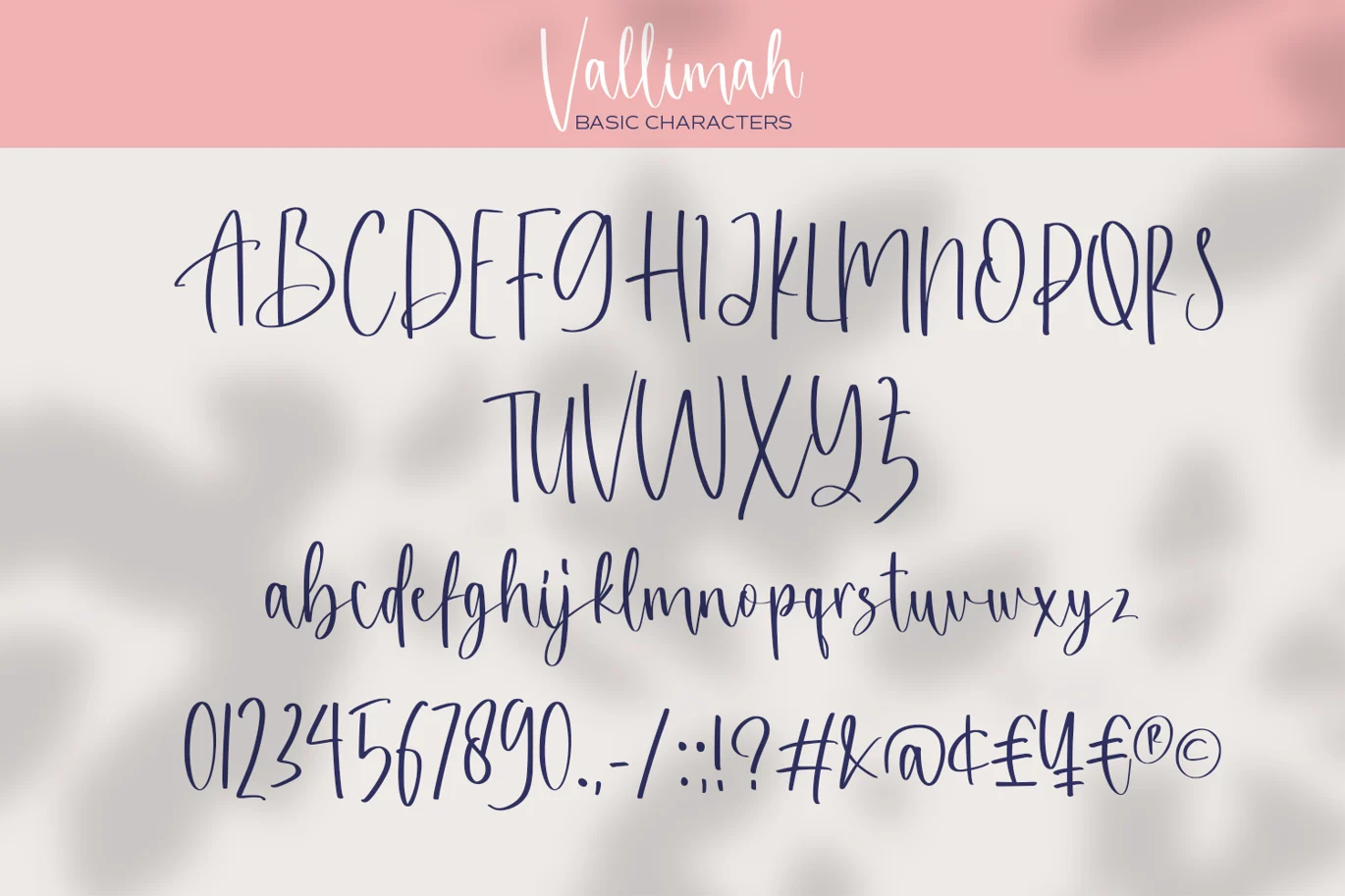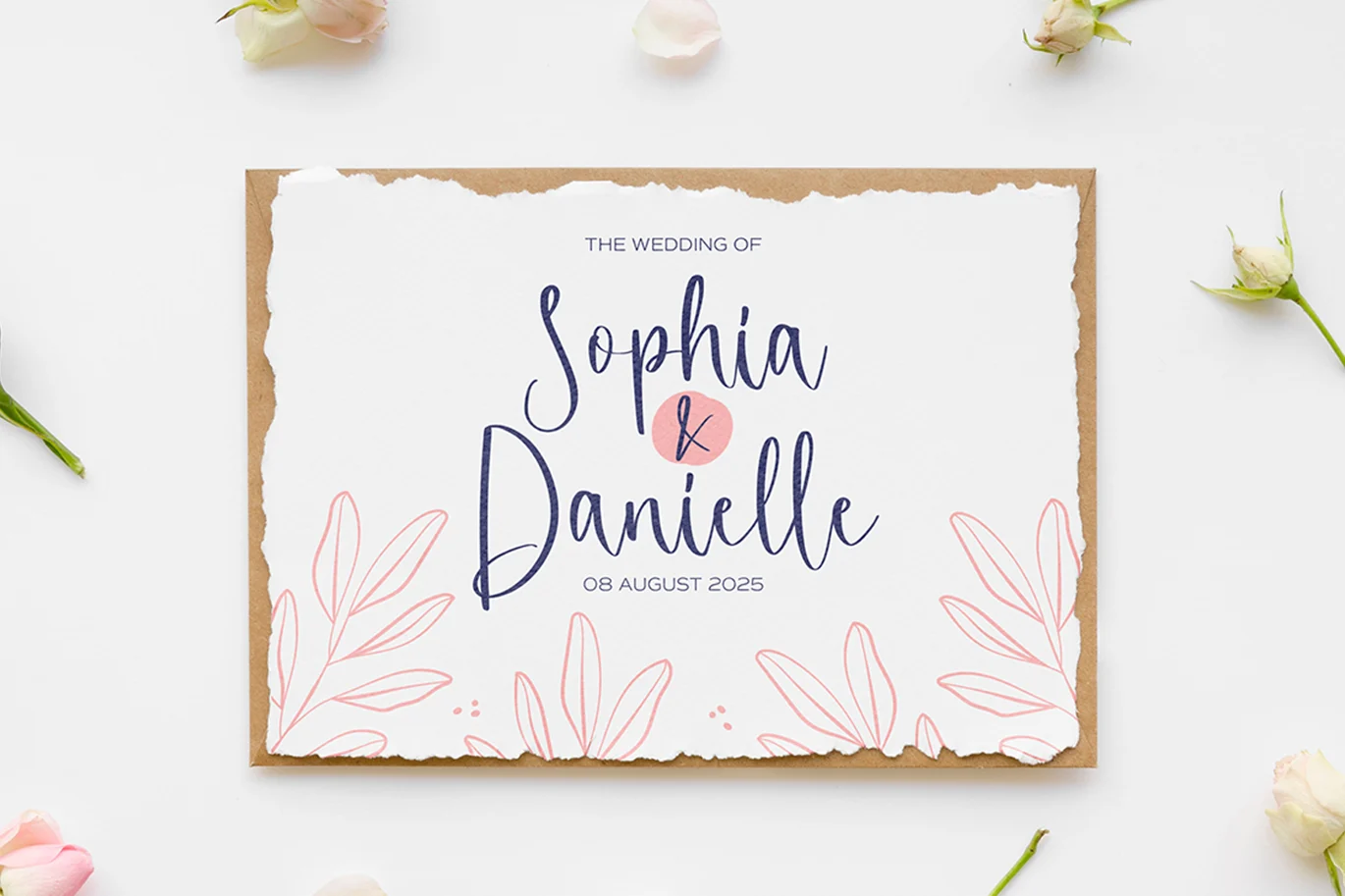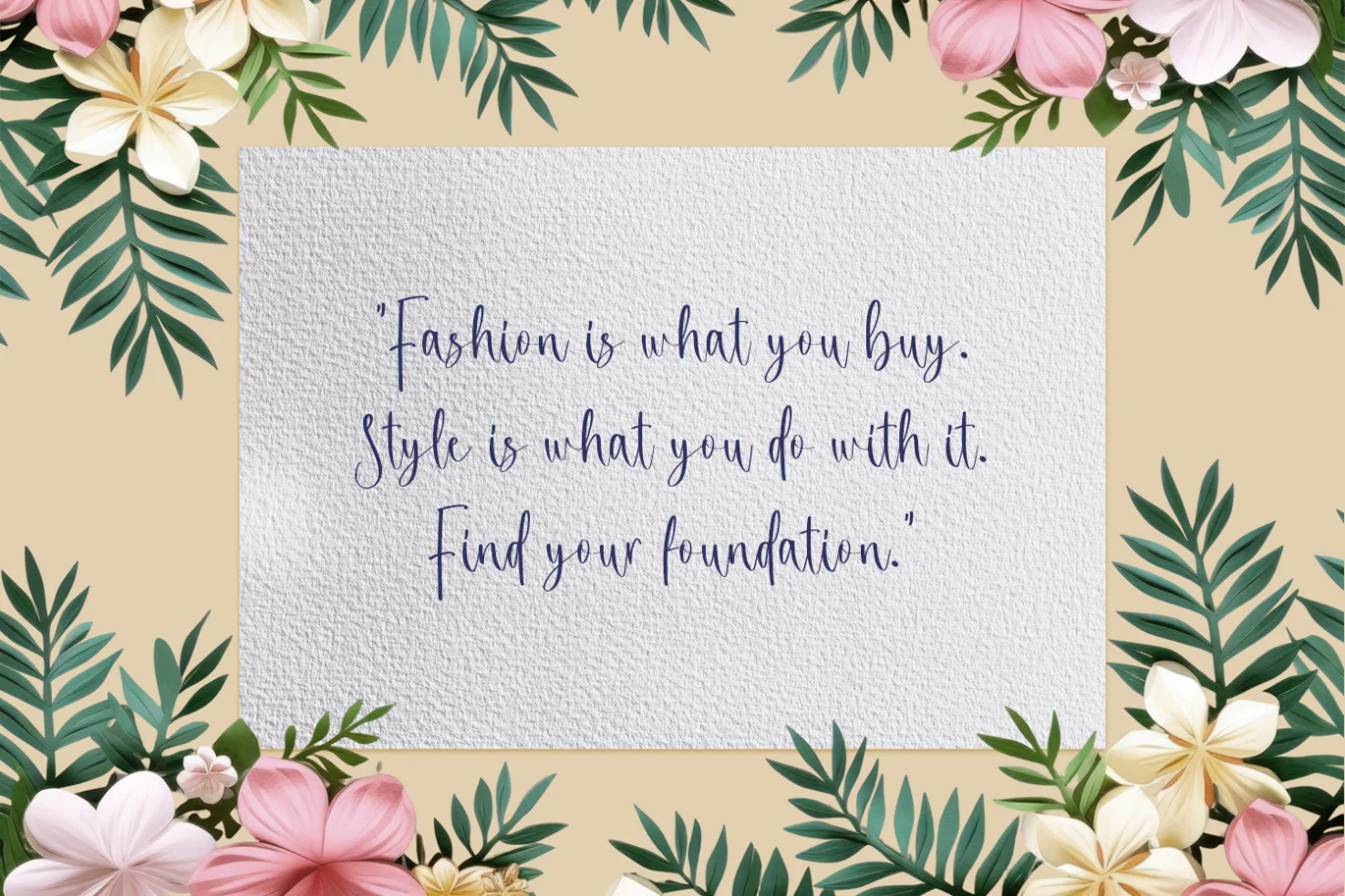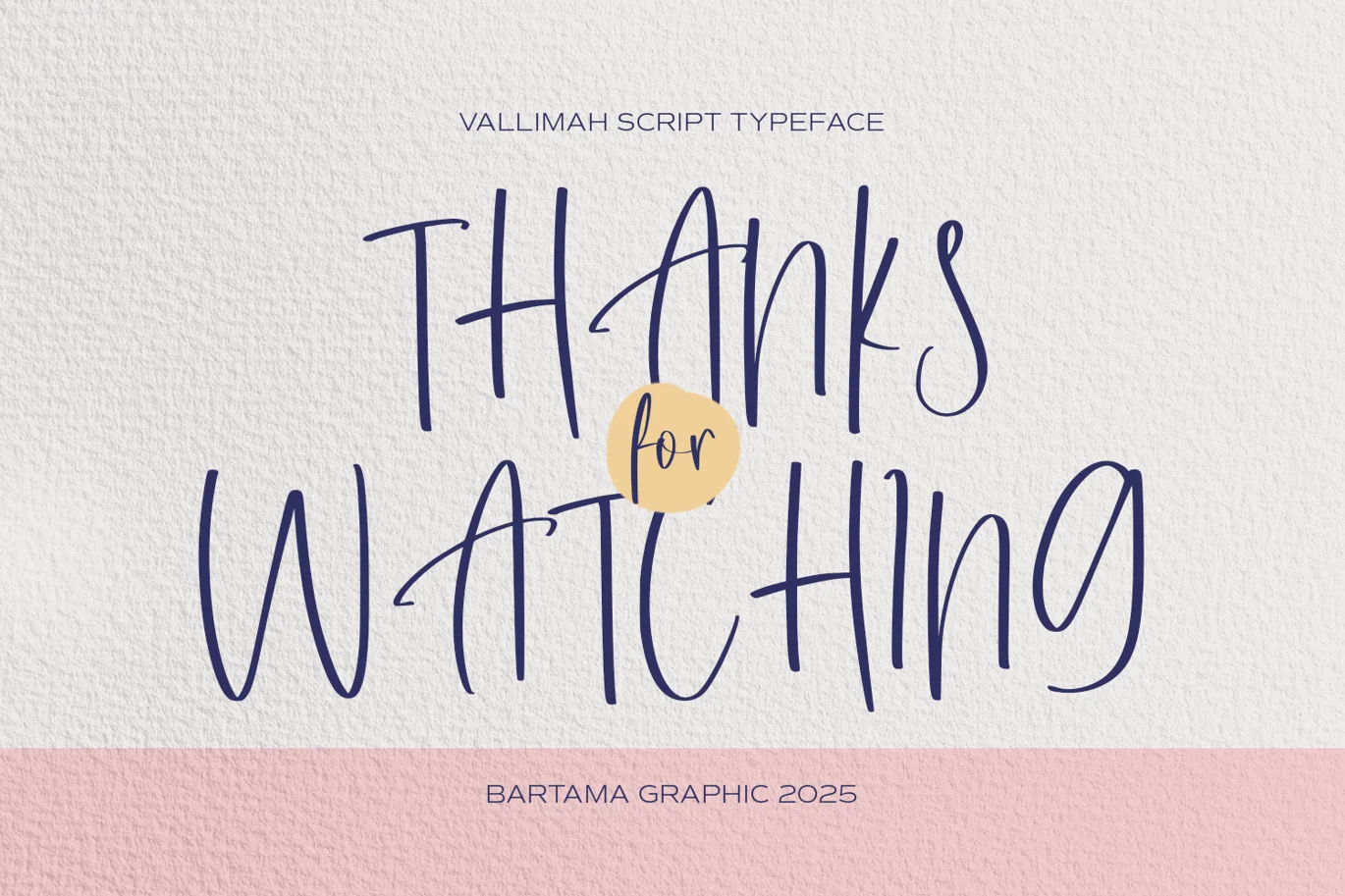
Vallimah – Script Font
Vallimah Script Font offers a smooth, flowing handwritten style with a touch of rustic elegance. Inspired by organic curves and natural writing, it's ideal for projects that need a warm, handcrafted feel. Perfect for invitations, packaging, and lifestyle branding.